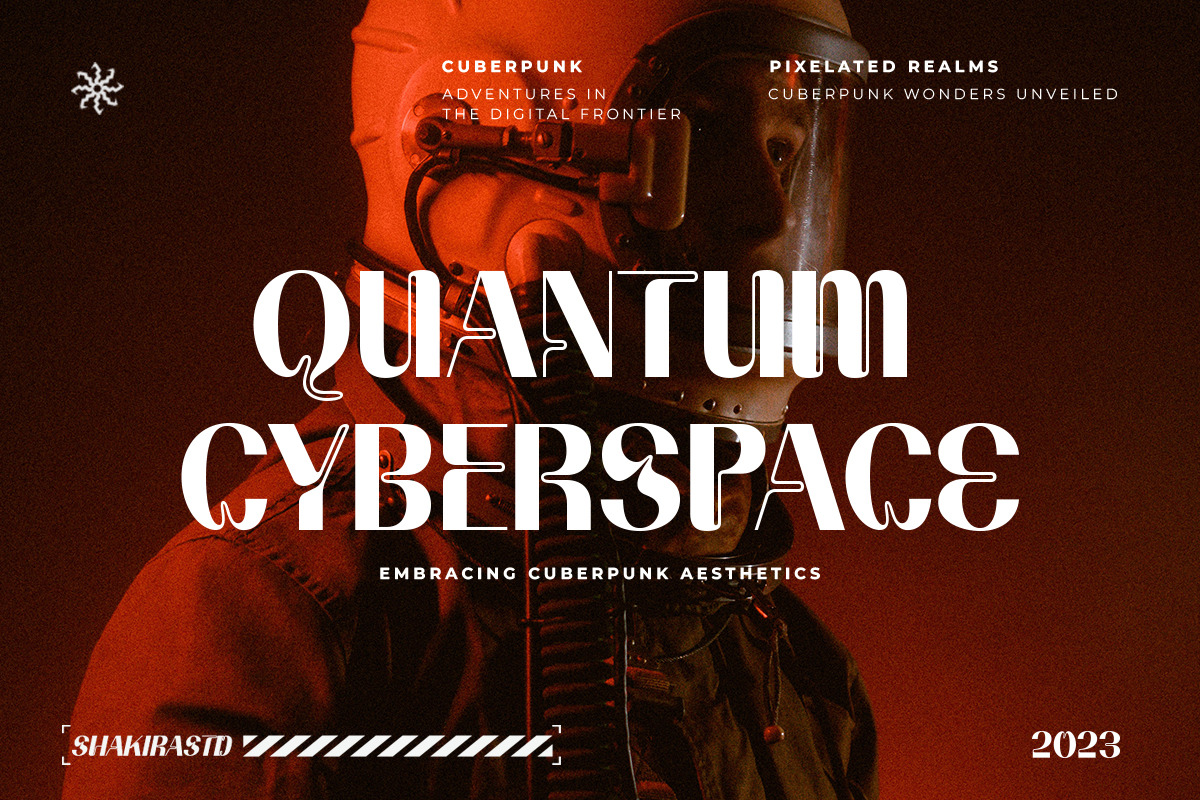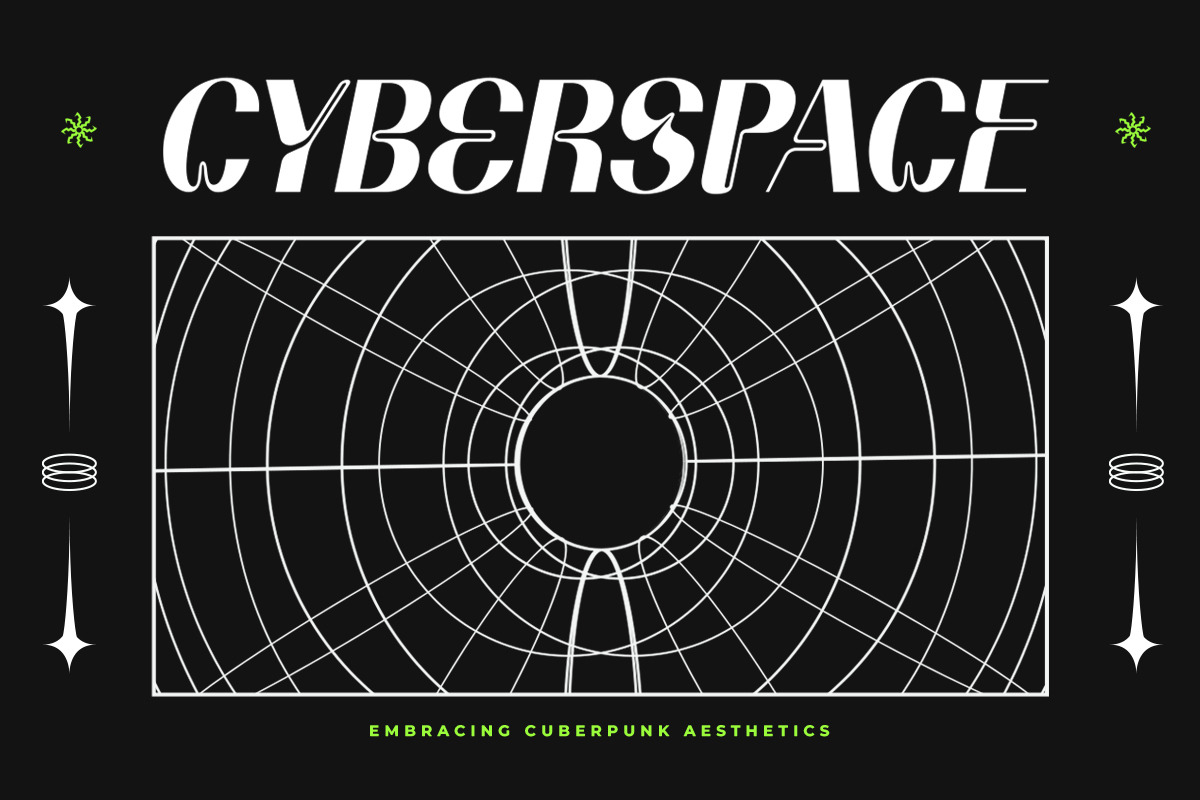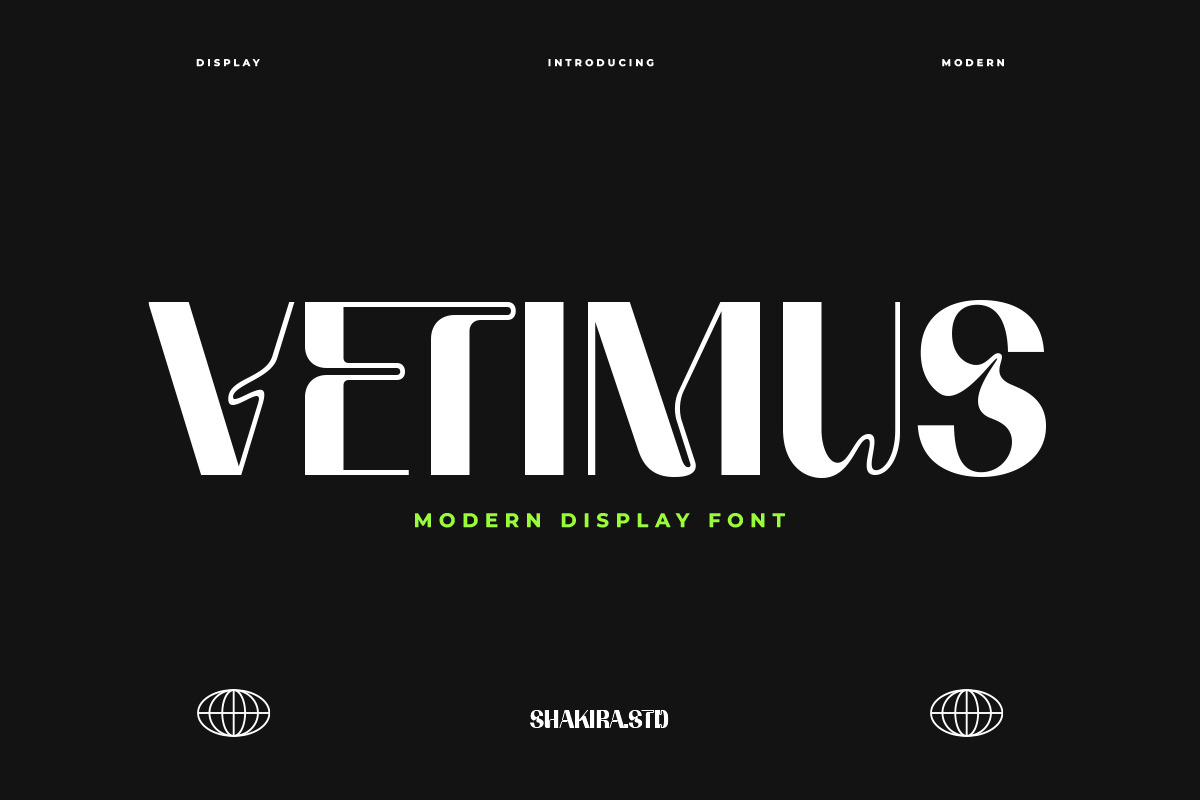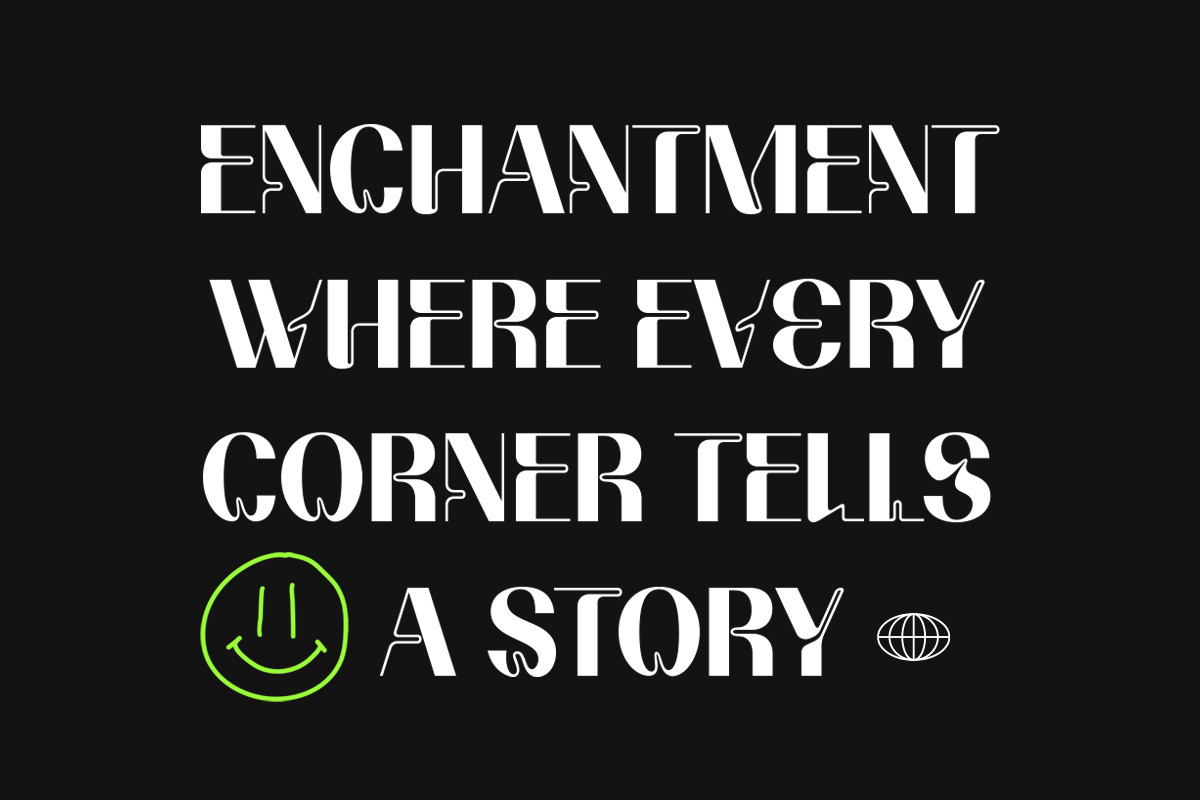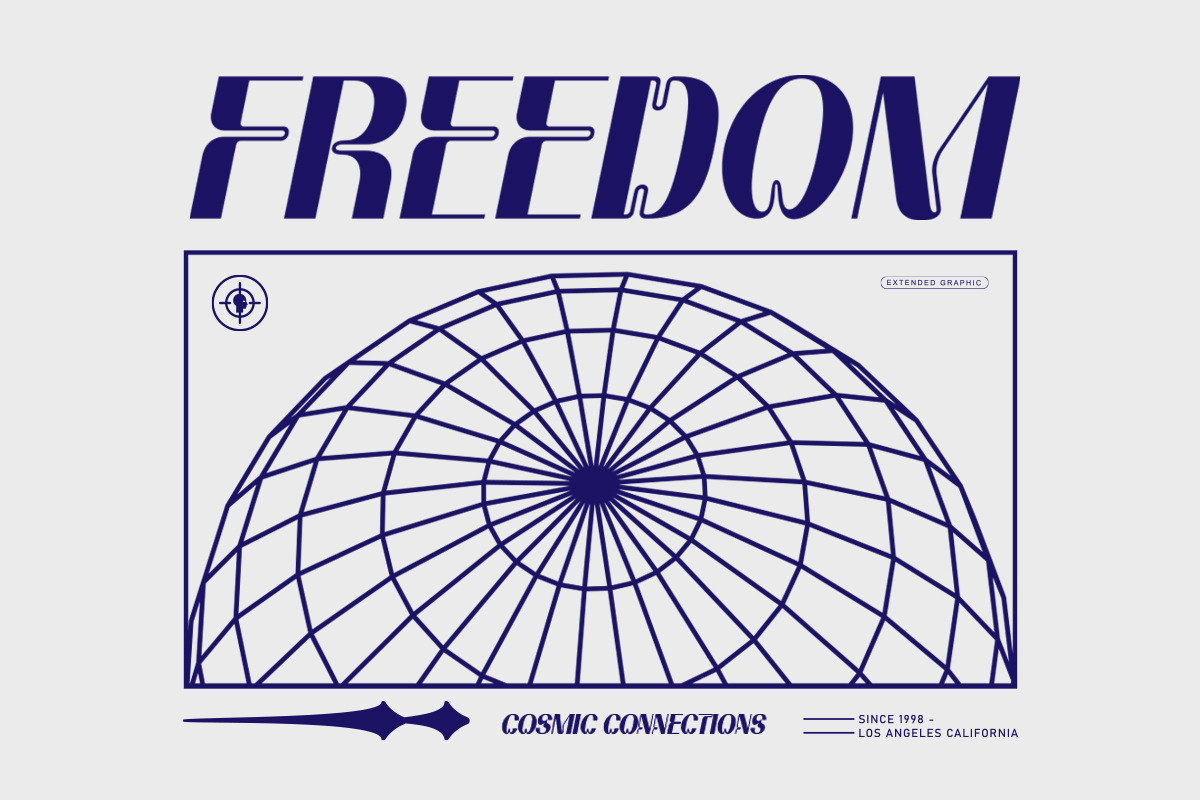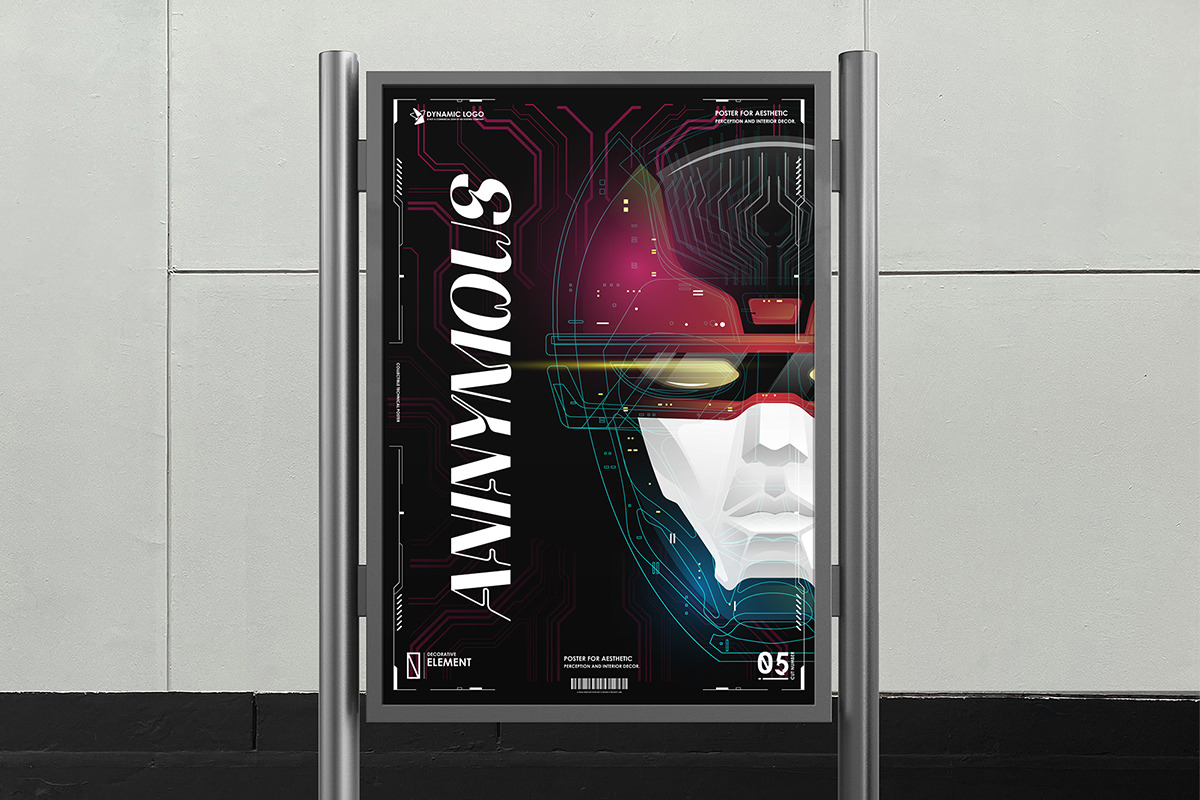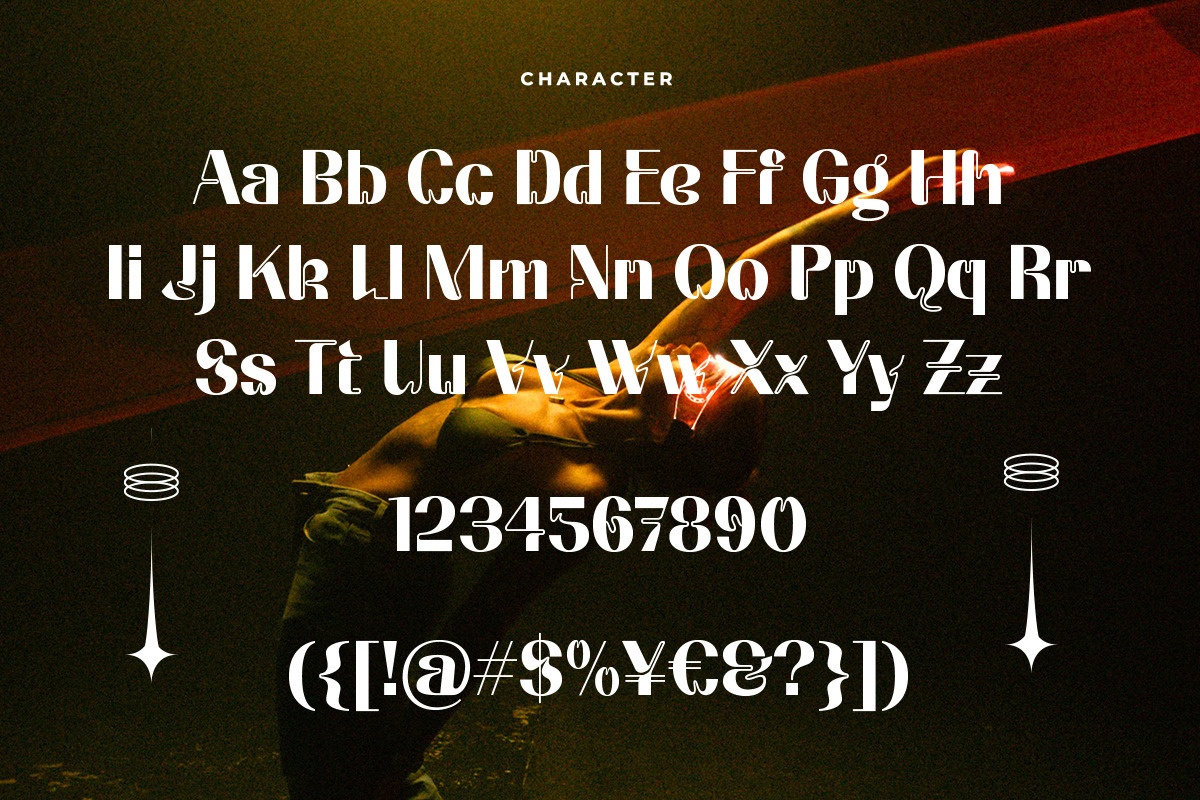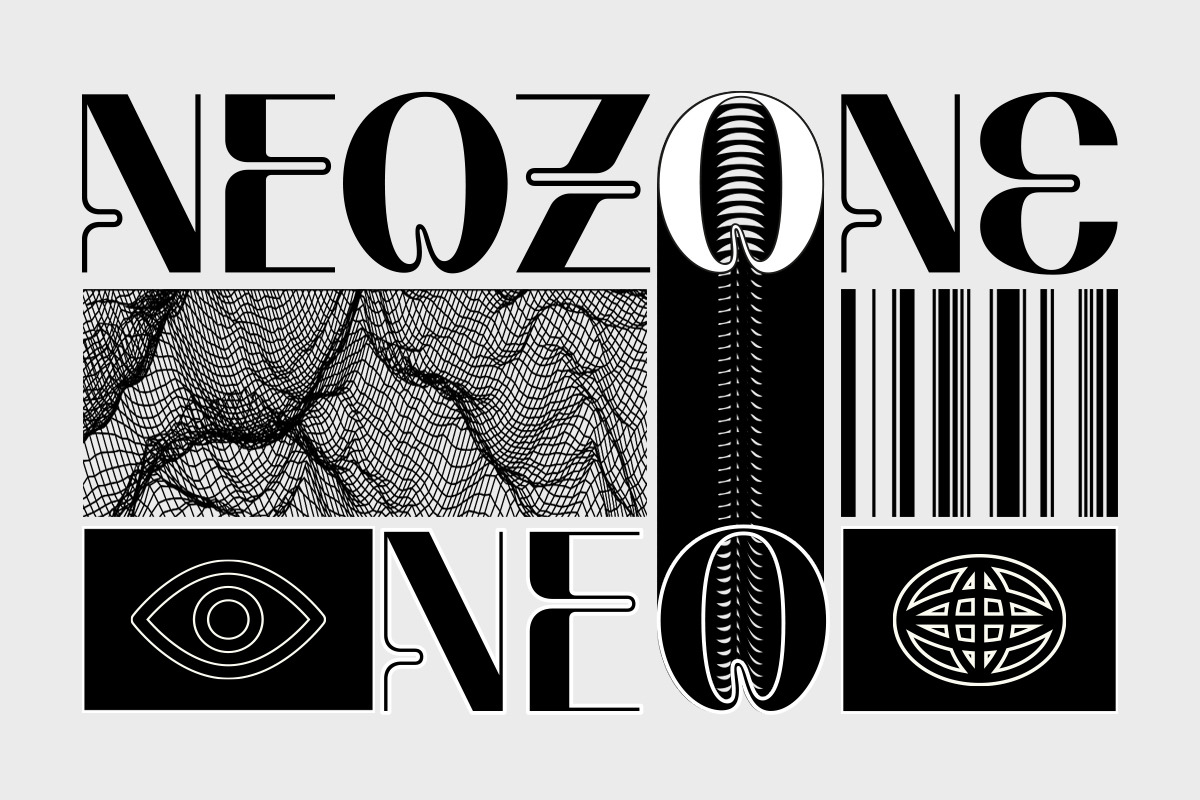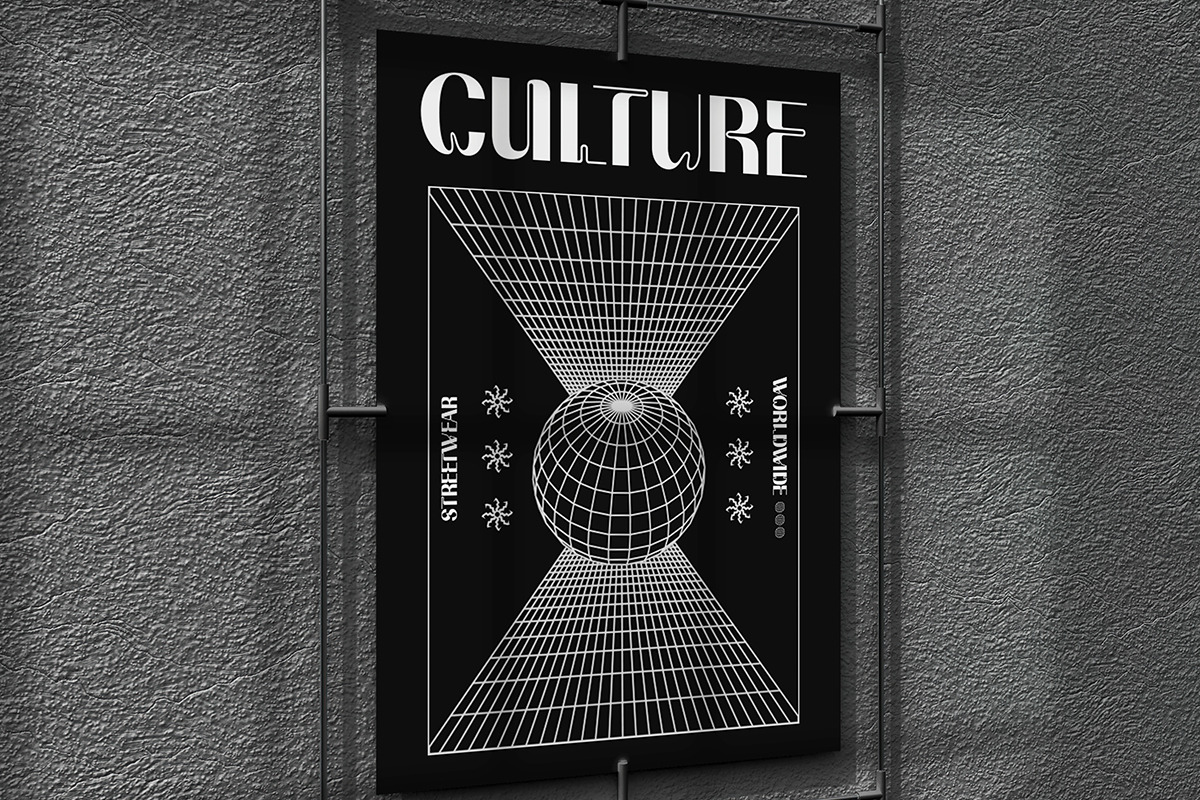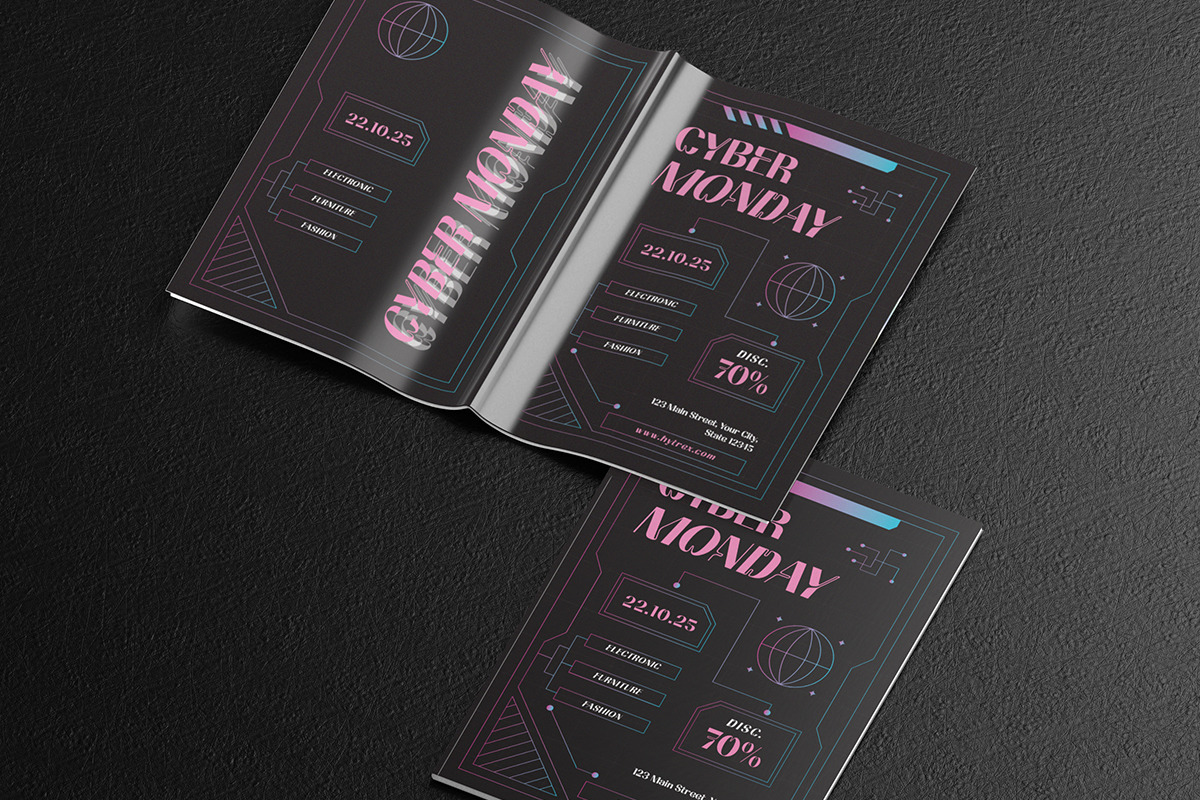
Vetimus - Modern Display Font
"Introducing Vetimus - Redefining Modern Elegance in Display Fonts! 🌟✨
Vetimus is not just a font; it's a statement of contemporary design excellence. This modern display font is the epitome of #TypographyInnovation and #DesignSophistication, crafted for designers who crave a perfect blend of boldness and finesse.
With sleek lines and captivating curves, Vetimus introduces a new era in type design. Perfect for logos, headlines, or any design that demands attention, this font embodies the essence of the current
Unleash the power of modernity in your designs with Vetimus, where every character is a testament to the bold and beautiful. Elevate your creative projects with the font that's redefining display typography.